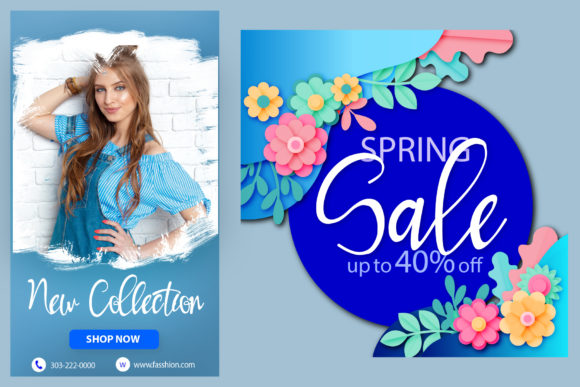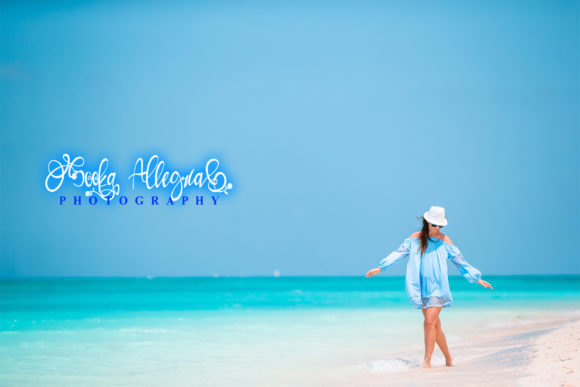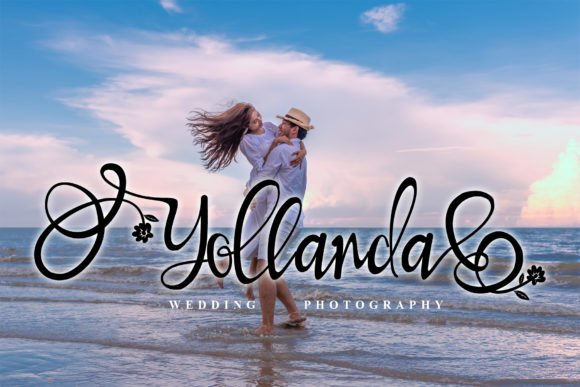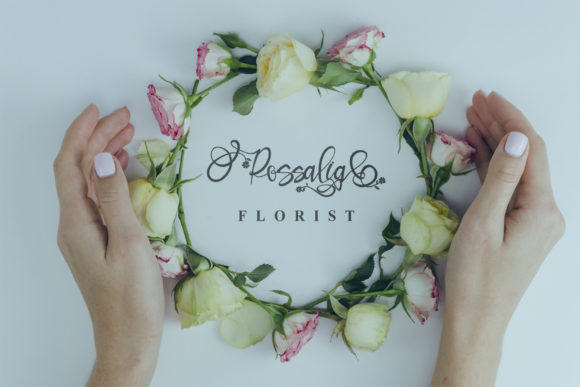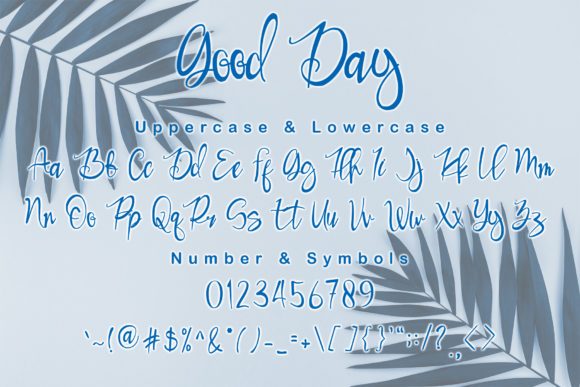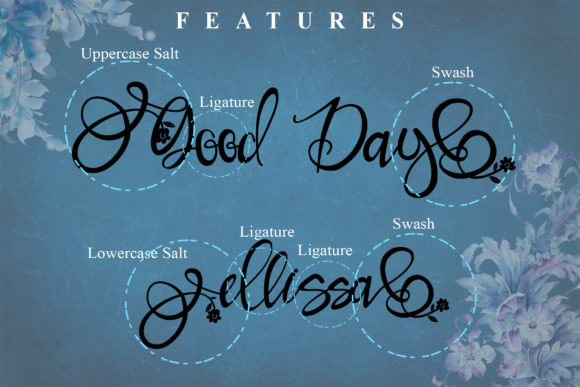
Introducing Good Day Font: Elevate Your Designs with Elegance and Flair
Are you on the hunt for a font that embodies the perfect blend of elegance and playfulness? Look no further than Good Day Font, a stunning handwritten script that is sure to take your designs to the next level. In this article, we’ll dive into the features and benefits of Good Day Font, and explore how it can be used to enhance your creative projects.
A Font that Simplifies Elegance
Good Day Font is a beautifully crafted handwritten script that distills elegance into a single, outstanding font. Its flowing lines and delicate curves make it perfect for a wide range of design applications, from Instagram posts and social media graphics to calligraphy scripts and DIY projects. Whether you’re a seasoned designer or a crafty DIY enthusiast, Good Day Font is sure to impress.
One of the standout features of Good Day Font is its PUA (Private Use Area) encoding. This means that you can access all of the font’s cute glyphs and swashes with ease, giving you a wealth of creative options at your fingertips. With PUA encoding, you can effortlessly add a personal touch to your designs, making them truly unique and eye-catching.
A Wealth of Special Features
Good Day Font is more than just a beautiful script – it’s also packed with special features that make it incredibly versatile. Some of the font’s key features include:
- Alternate Glyphs: Good Day Font features a range of alternate glyphs, allowing you to mix and match different characters to create a truly unique look.
- Ligatures: The font also includes ligatures, which enable you to connect letters and create a flowing, cursive effect.
- Swashes: With Good Day Font, you can add a touch of elegance to your designs with the font’s beautiful swashes.
Good Day Font is an ideal choice for designers and crafters looking to add a touch of sophistication and whimsy to their projects. Whether you’re creating:
- Social Media Graphics: Use Good Day Font to create eye-catching Instagram posts, Facebook graphics, and more.
- DIY Projects: Add a personal touch to your DIY projects, such as handmade cards, gift tags, and scrapbook pages.
- Calligraphy Scripts: Good Day Font is perfect for creating beautiful calligraphy scripts for special occasions, such as weddings and events.
Tips for Using Good Day Font
To get the most out of Good Day Font, here are a few tips to keep in mind:
- Experiment with Different Sizes: Good Day Font looks great in a range of sizes, from small and delicate to large and bold.
- Mix and Match Glyphs: Take advantage of the font’s alternate glyphs and ligatures to create a unique and personalized look.
- Add a Pop of Color: Use Good Day Font in conjunction with a bold color scheme to really make your designs pop.
In conclusion, Good Day Font is a truly exceptional handwritten script that is sure to elevate your designs and add a touch of elegance and whimsy. With its PUA encoding, special features, and versatility, it’s the perfect choice for designers and crafters looking to take their projects to the next level. So why wait? Download Good Day Font today and start creating beautiful, one-of-a-kind designs that are sure to impress.